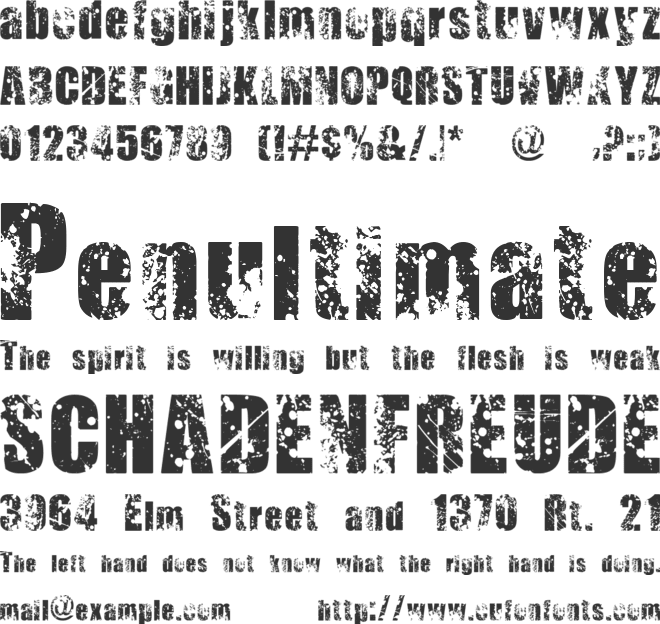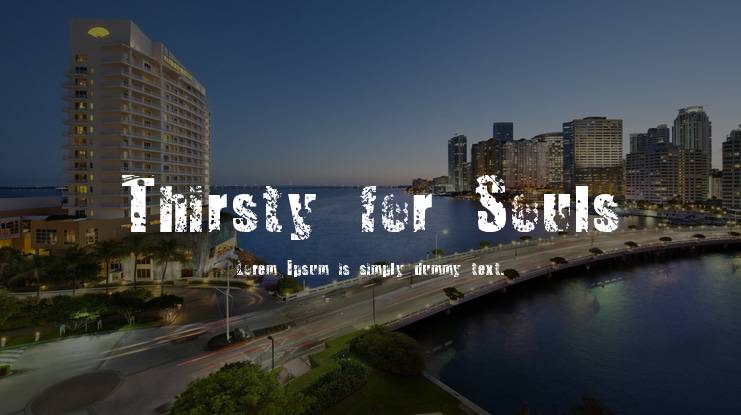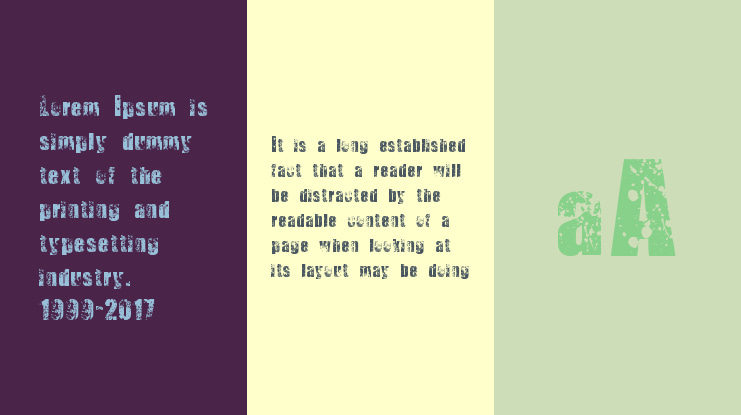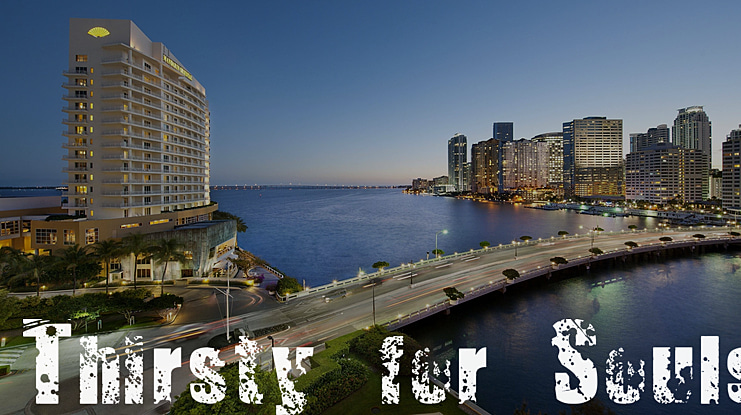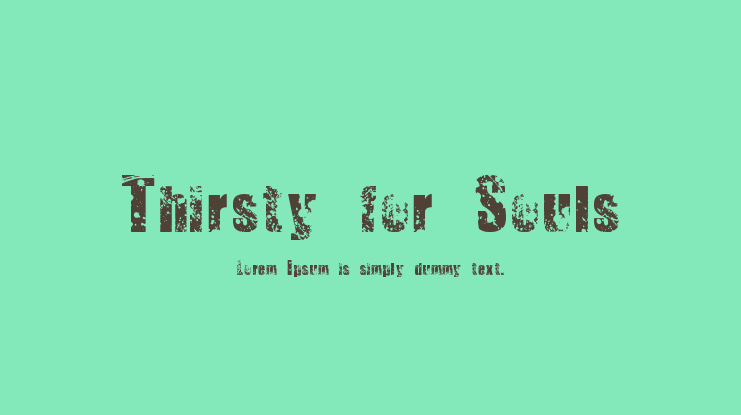
Thirsty for Souls Font
I made this one for my bestest best friend Bwomp, because he is the
devourer of souls. I'm pretty proud of the fact that this one lines
up all nice. This is the first time I even attempted that. And most
of the letters are the same height as other similar letters. It looks
all professional and scary. It also looks like someone splashed white
paint all over it, or something.